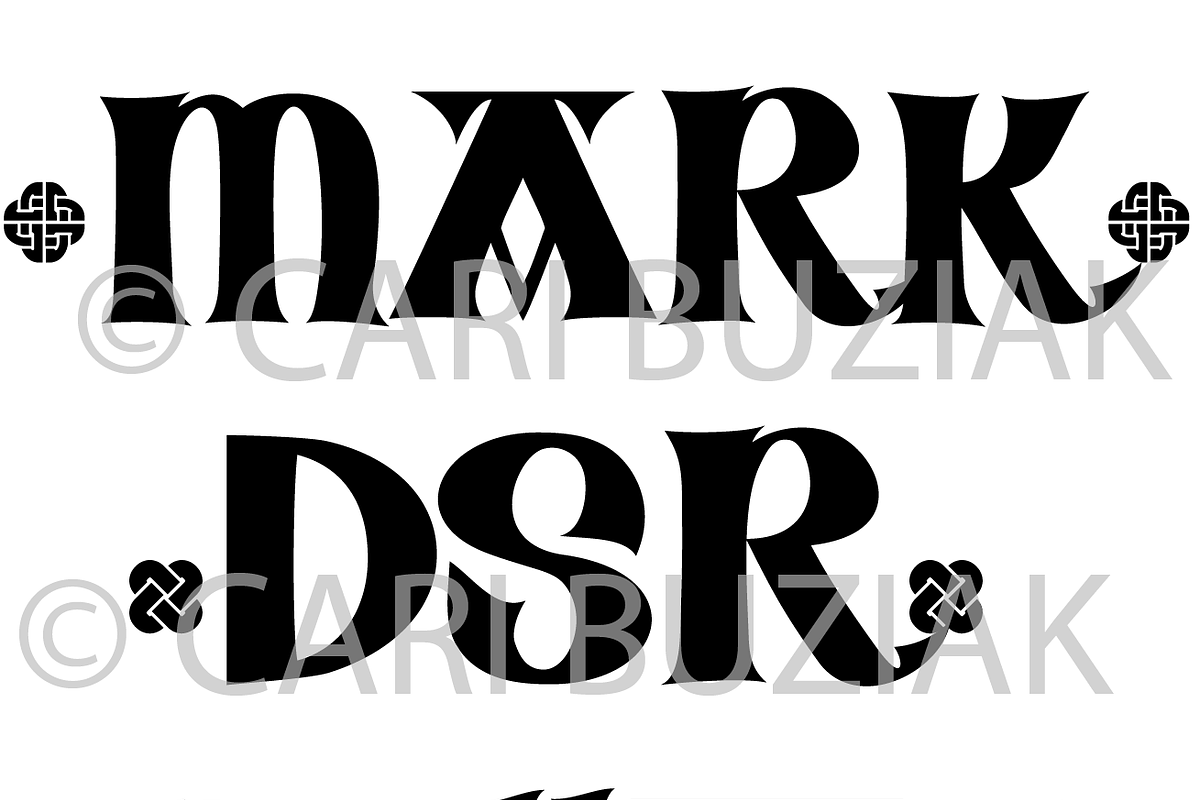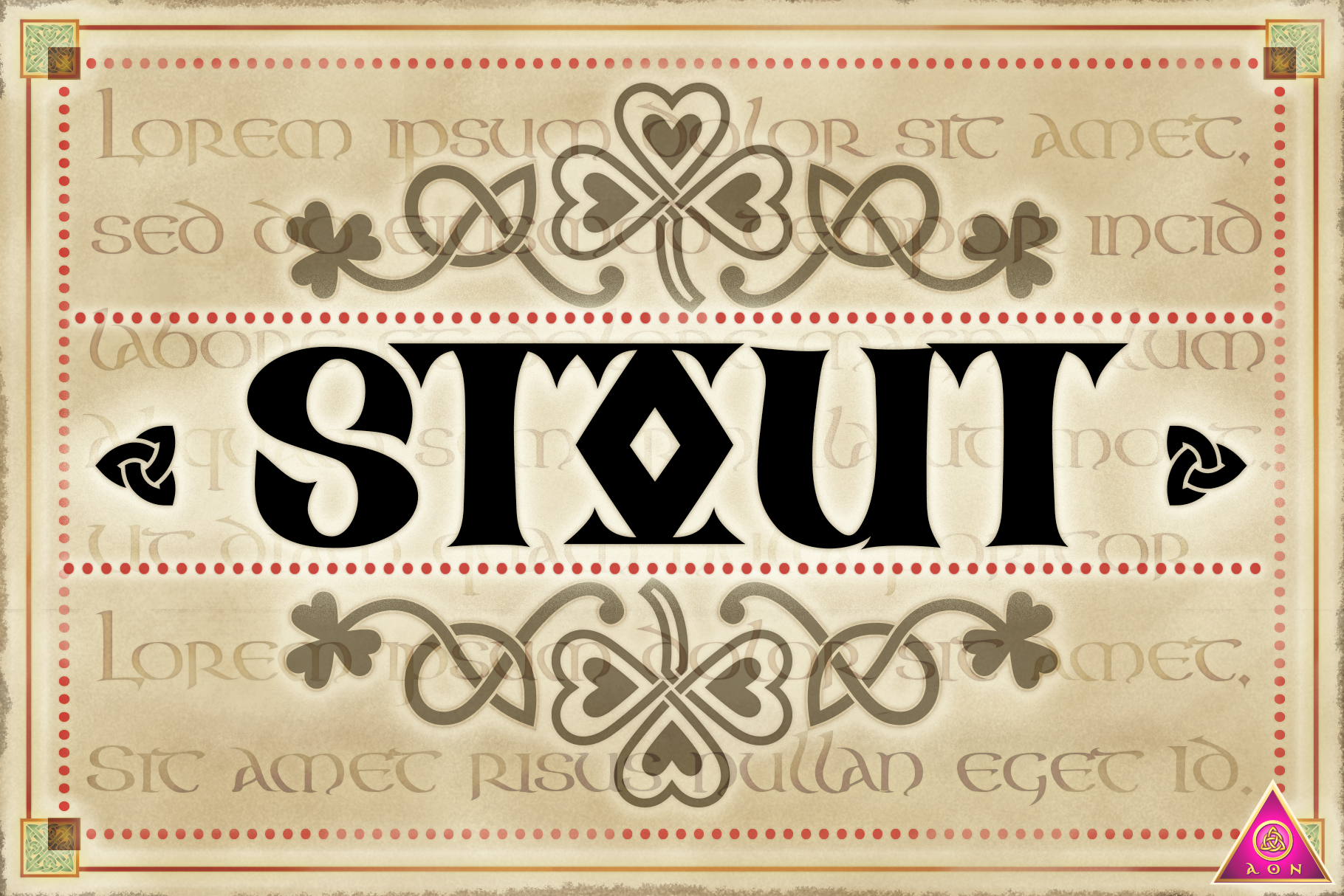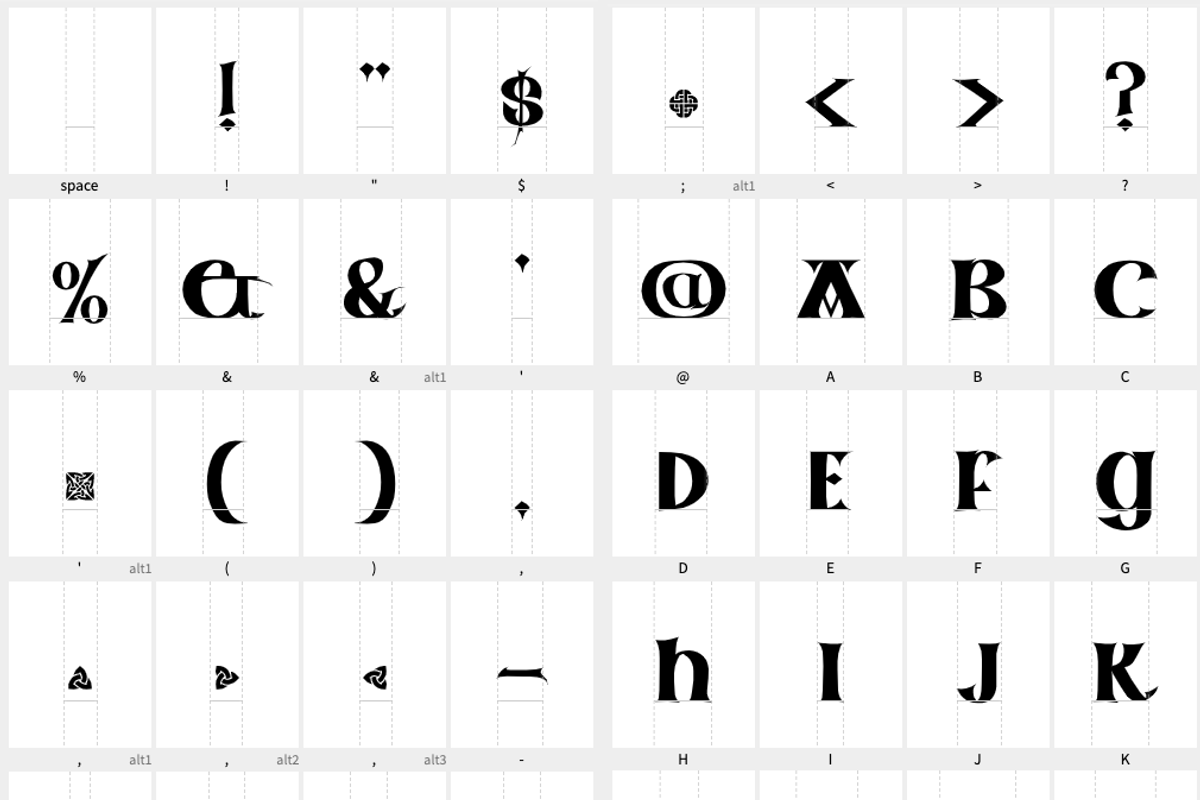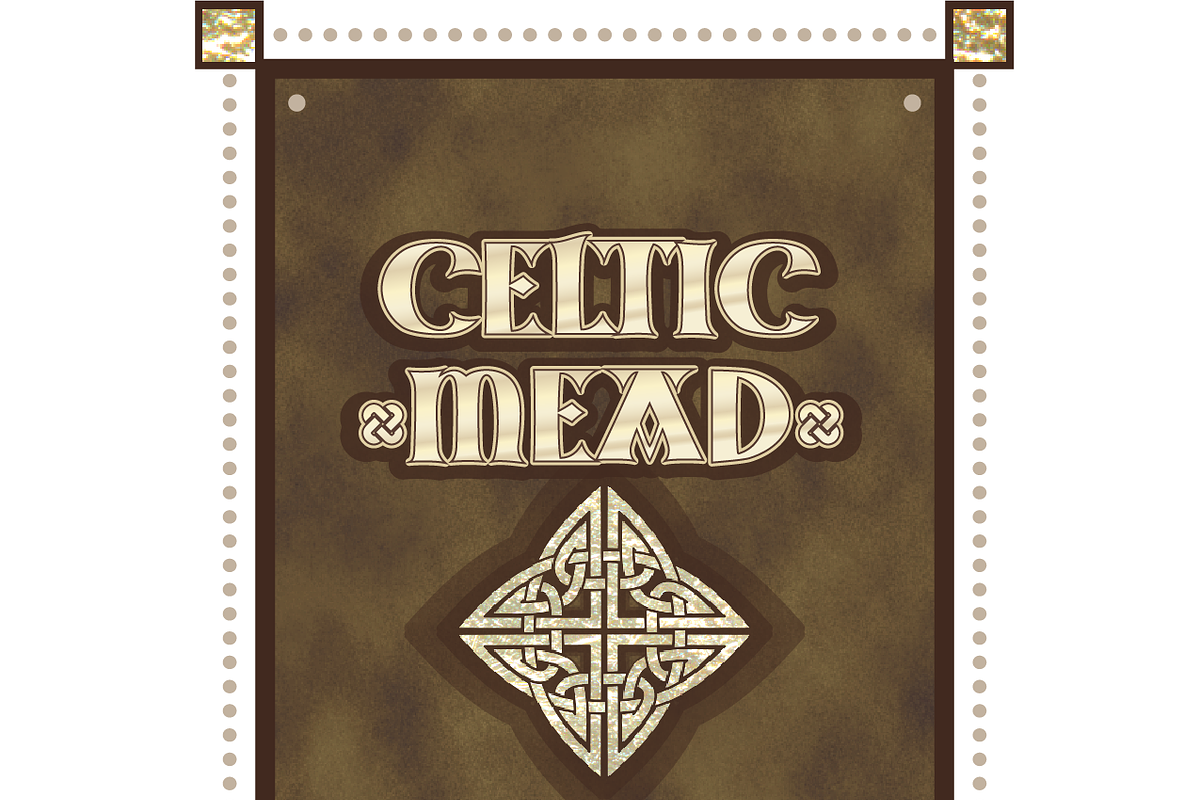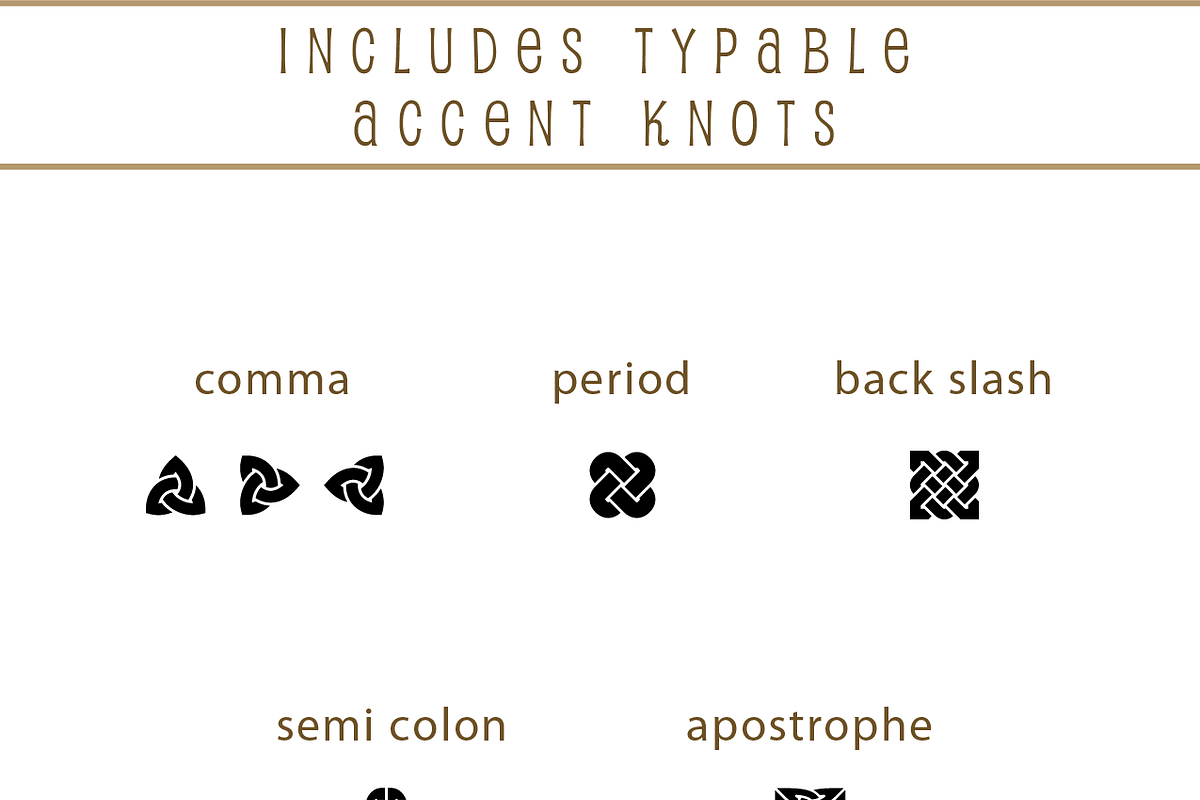
CELTIC FONT - Aon Stout
☘️ This font is a bold and dense type letter, much like a black letter type font, only in the style of the ancient Celtic manuscripts. It is an uppercase only font, therefore a “display font”, but could be paired with uncials and half uncials and used as a decorative cap with them. I have also included common punctuation and a few really cute ligatures. I've also included some little Celtic knot dingbats for you to use in your projects - just type to add!
Perfect for creating personal stationary, monograms, invitations and using in craft projects!